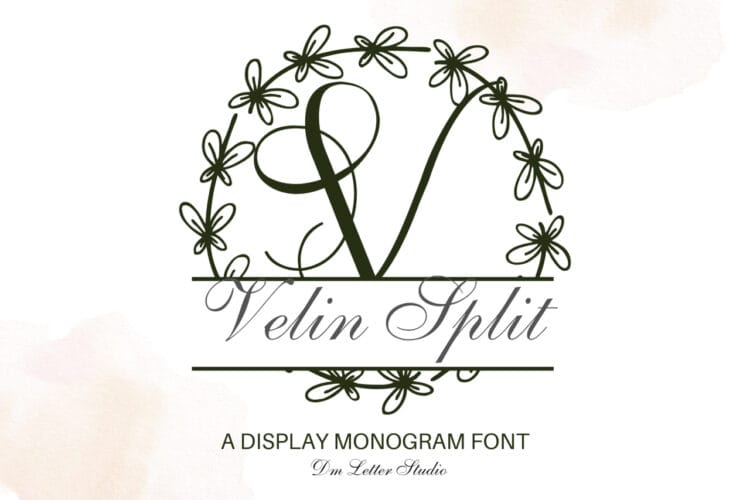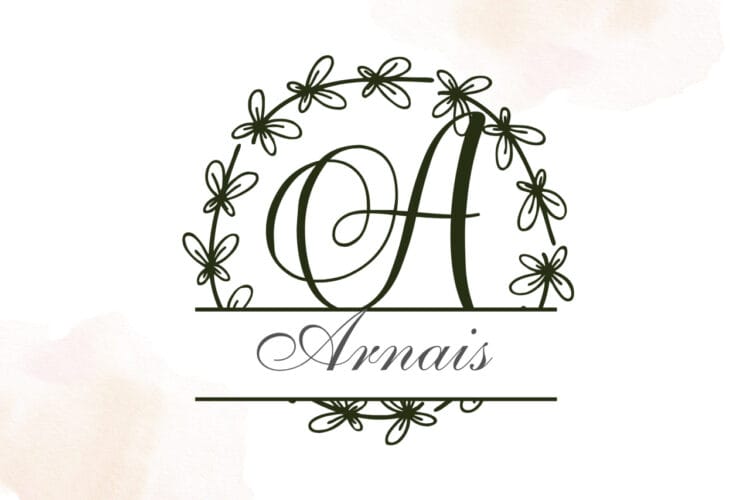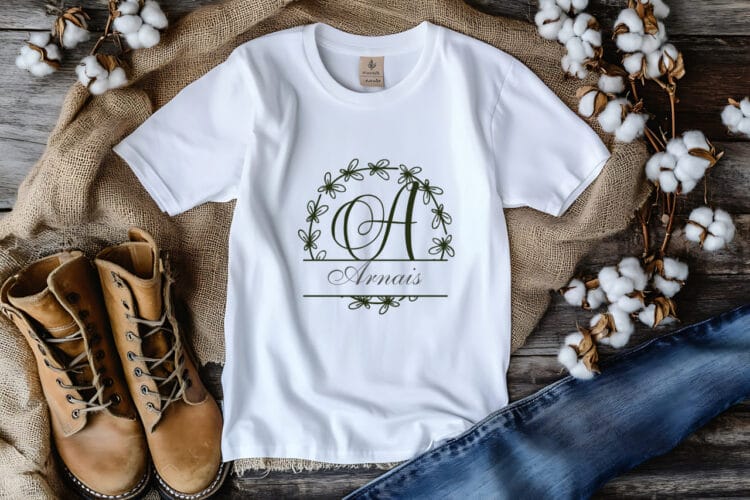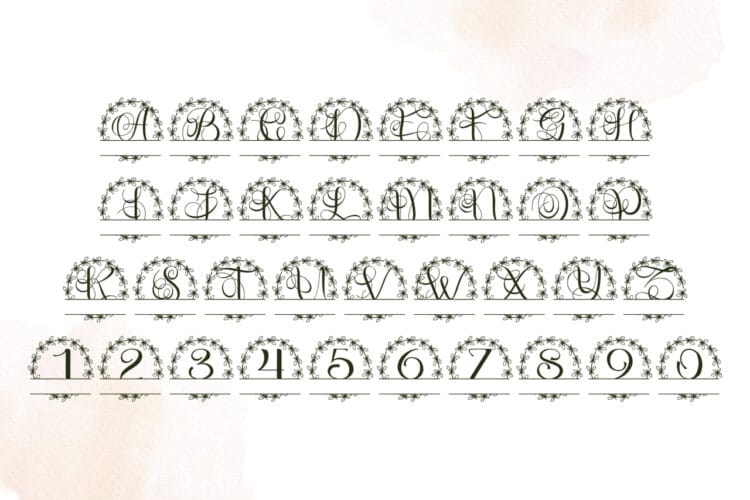
Meet Velin Split Monogram Font
Velin Split Monogram turns initials into clean, modern emblems with a precise split center for names or dates. The design is smooth, minimal, and well balanced, giving each monogram a refined, contemporary look that feels timeless. Each letter stays sharp at any size, so small tags remain readable while larger designs look polished and professional. Use Velin Split for modern weddings, boutique branding, stationery, logo marks, and luxury packaging. As a result, your monograms feel personal, elegant, and easy to apply across many projects.
Fast layouts with the Velin Split Monogram Font
Start with a bold initial and place the name or date in the split center. After that, let negative space do the work and keep extra elements minimal. Because Velin Split holds its shape at small sizes, labels, stickers, cards, and favor tags stay clean and readable. In addition, it pairs beautifully with soft serifs, light scripts, or neutral sans serifs for supporting text. Finally, save color palettes like black and ivory, stone and sand, sage and cream, or charcoal and soft gold to reuse across collections.
Creative uses and quick wins
Modern wedding monograms and invitation covers
Place cards, table numbers, and minimalist favor tags
Logo marks, certificates, and brand seals
Packaging labels for skincare, perfume, candles, and lifestyle goods
Alphabet characters (A–Z)
Numbers (0–9)
Design tips for Velin Split Monogram Font